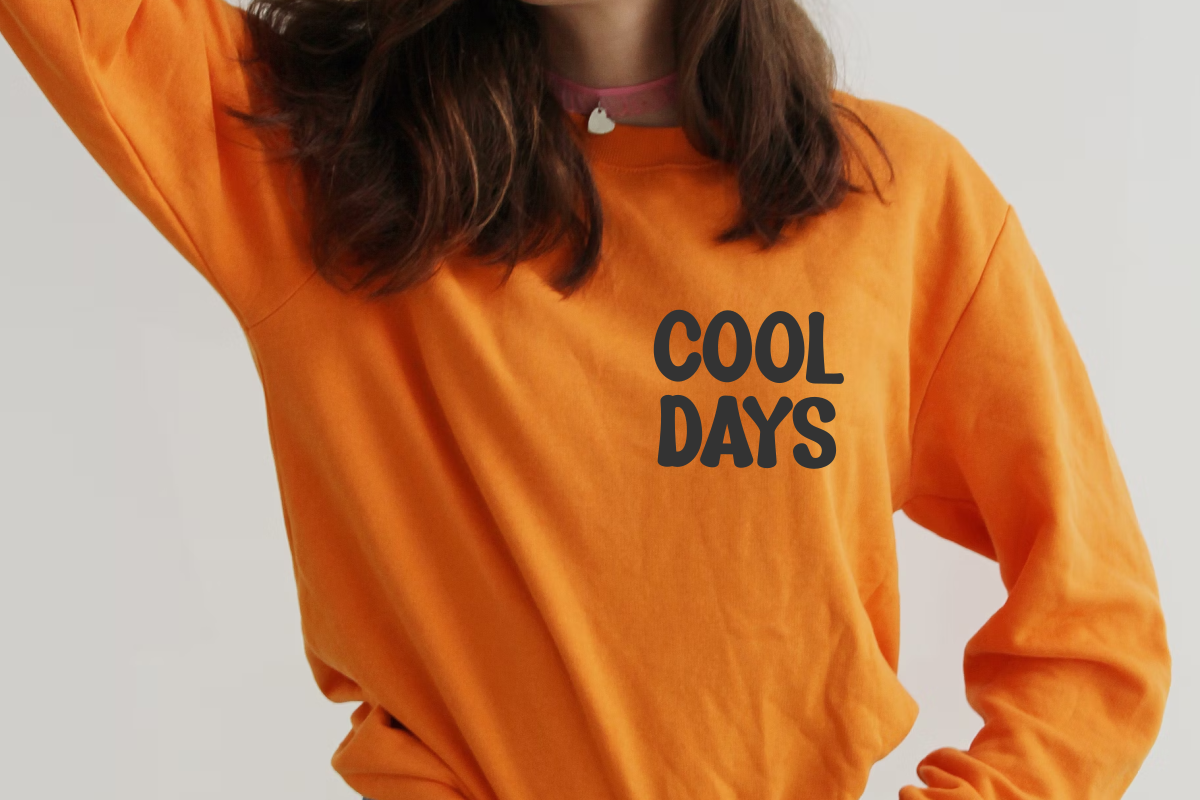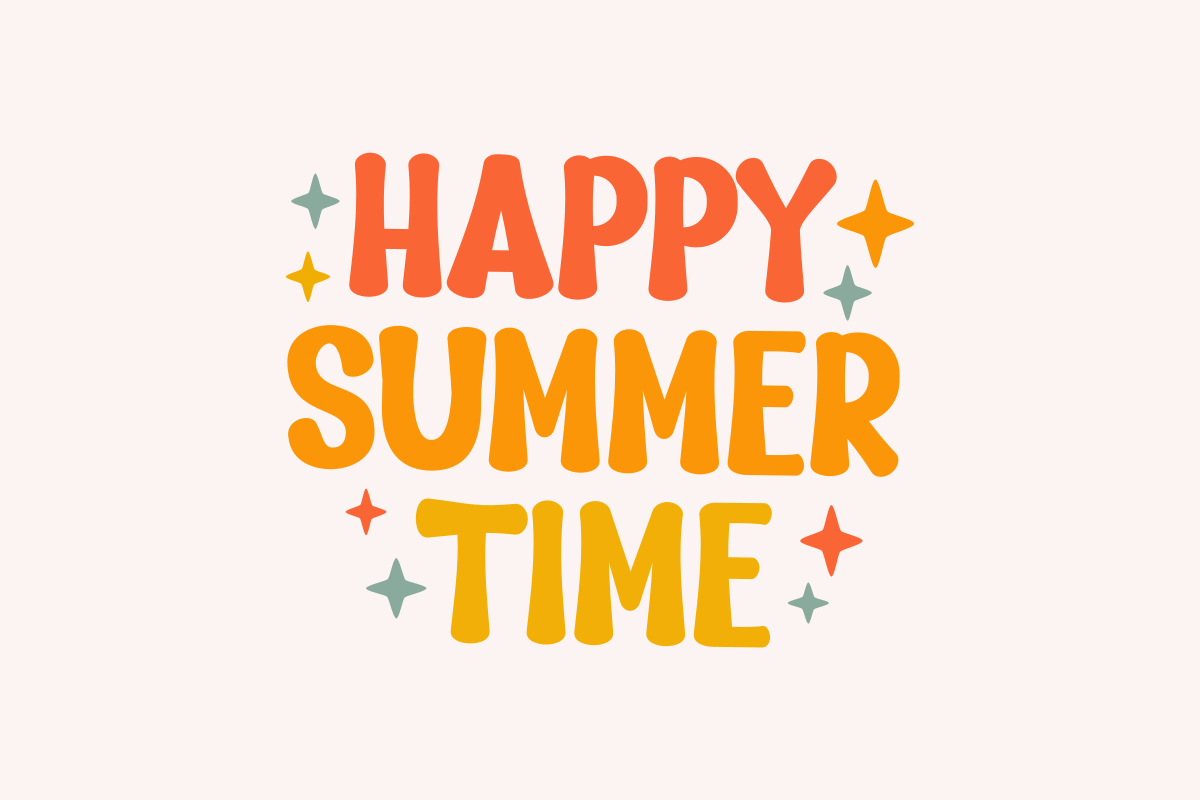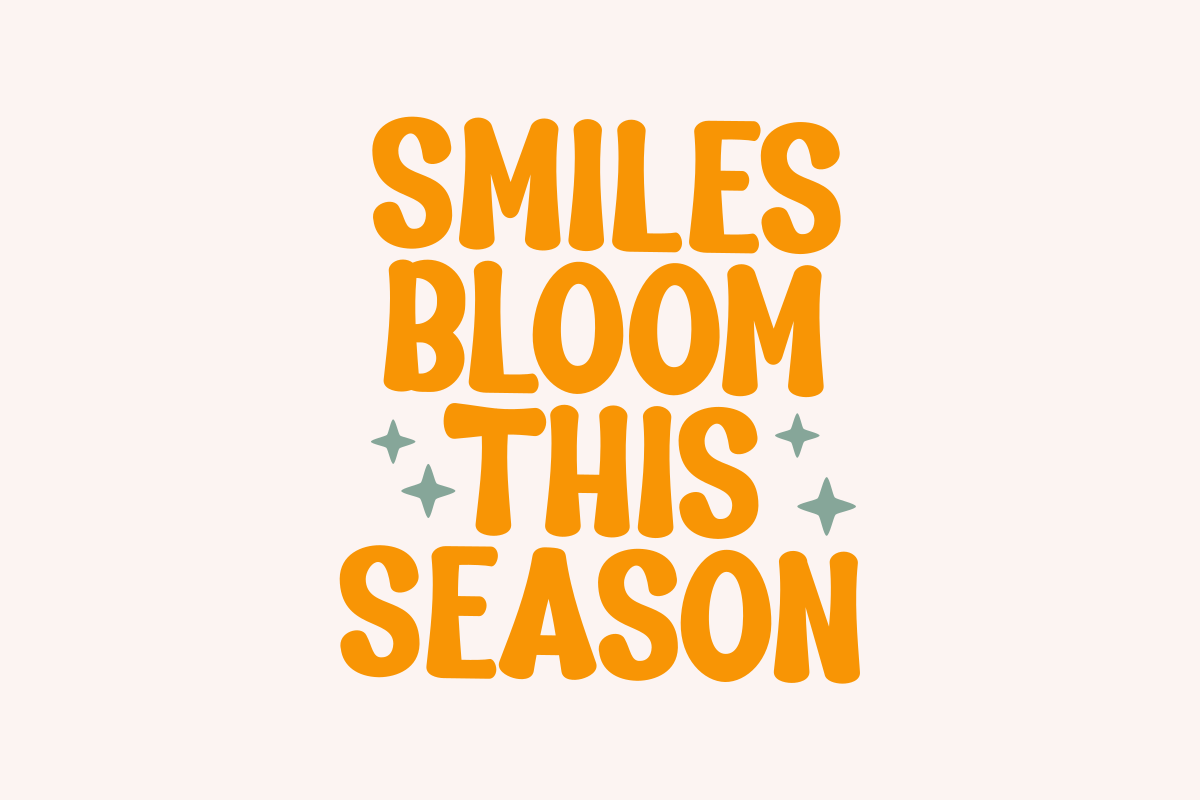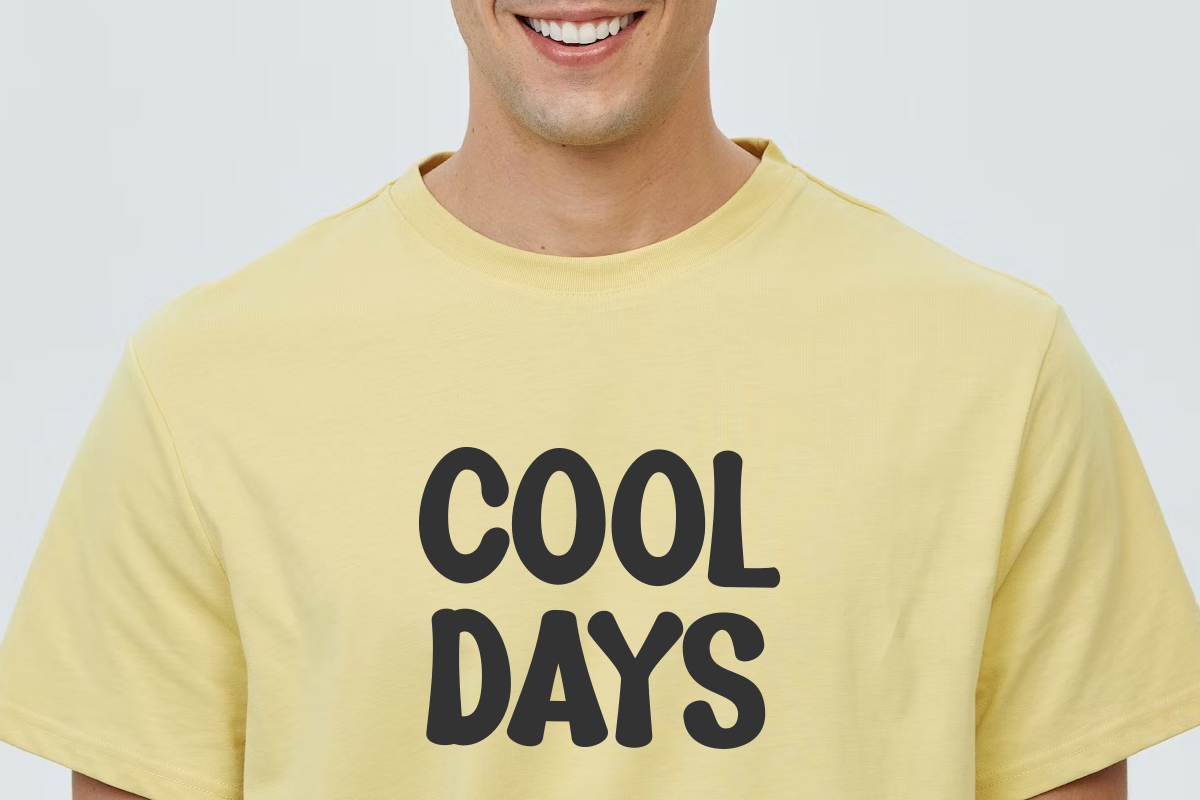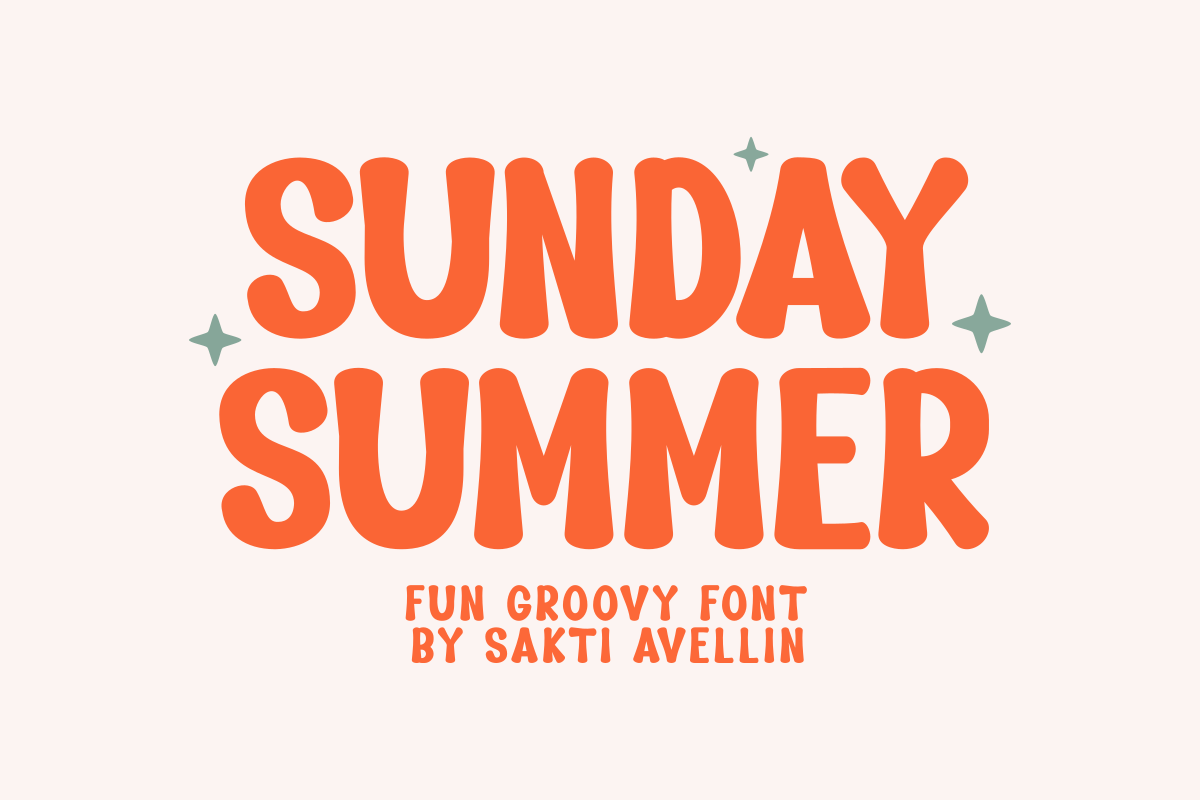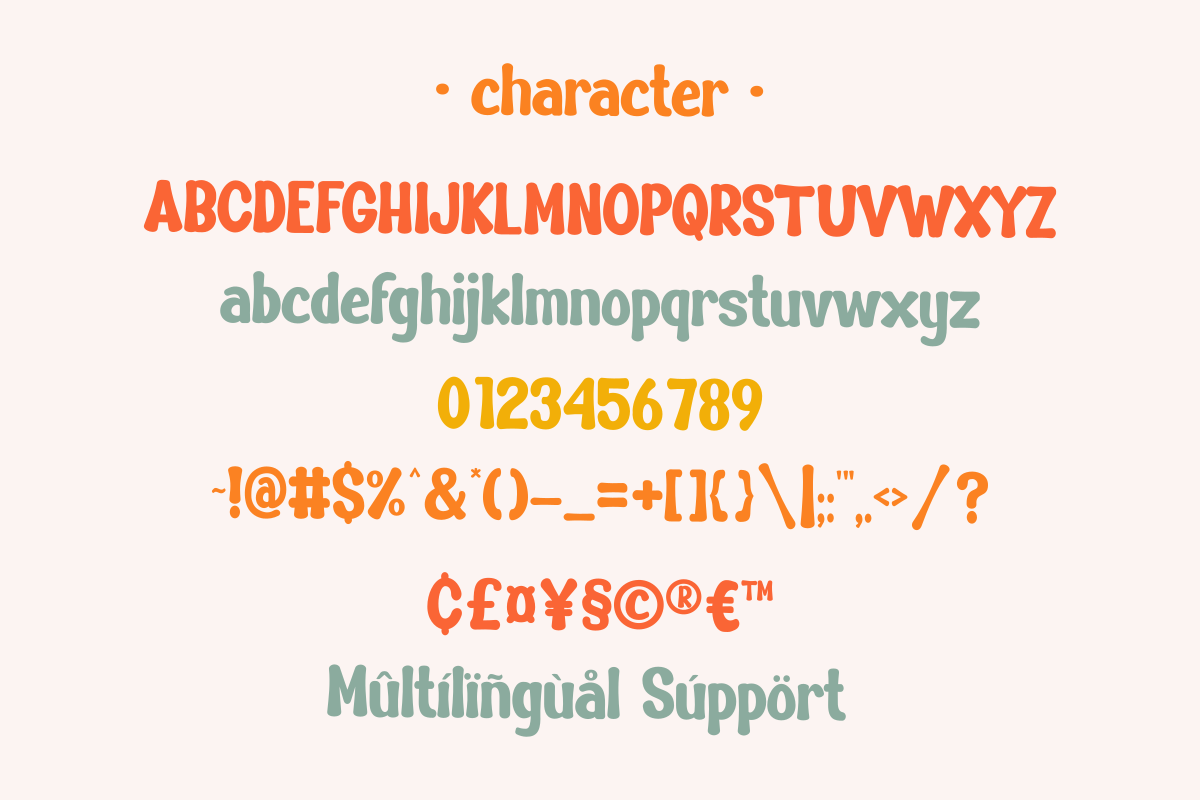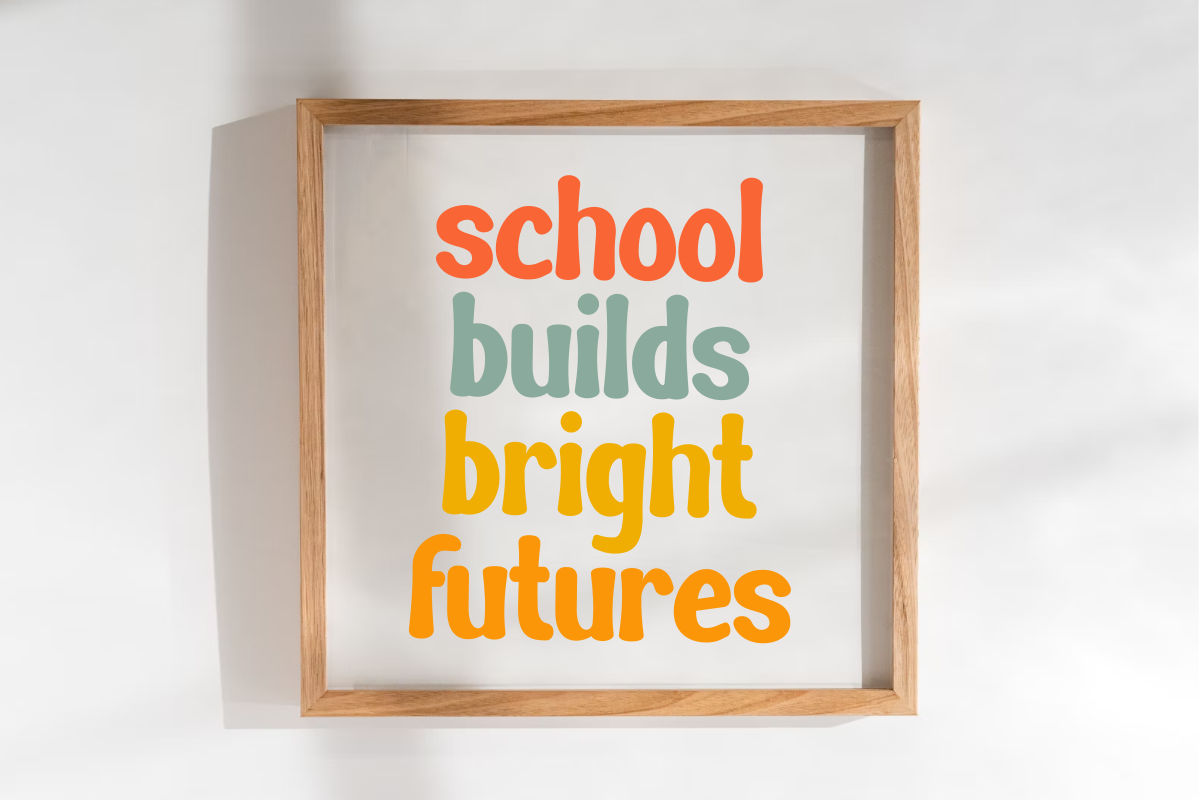
Sunday Summer - Fun Groovy Font
Sunday Summer is a bright, cheerful, and high-impact fun groovy font designed to bring a sun-drenched 1970s energy to your creative projects. This bubbly display typeface features thick, rounded letterforms with a playful, rhythmic bounce, making it an essential choice for summer branding, beach-themed t-shirt prints, vintage vacation posters, and vibrant social media graphics. Its unique, hand-drawn silhouette ensures it stands out as a powerful decorative font for headlines and playful packaging, perfect for designers seeking a mix of retro nostalgia and modern summer vibes. Shine bright in every design with the joyful spirit of Sunday Summer!